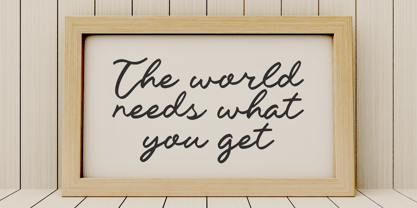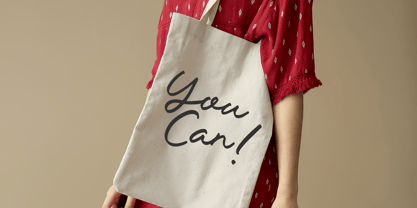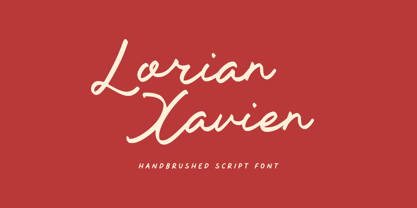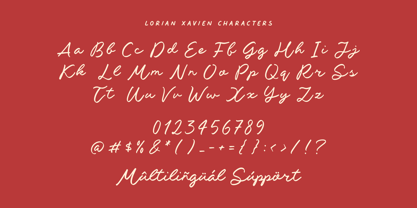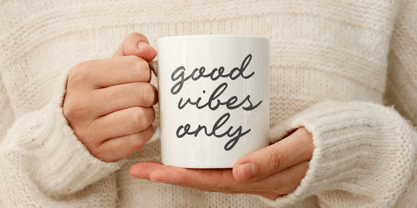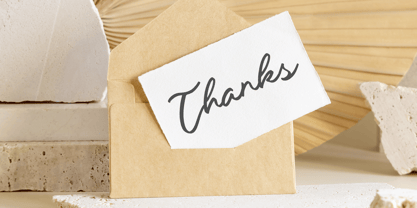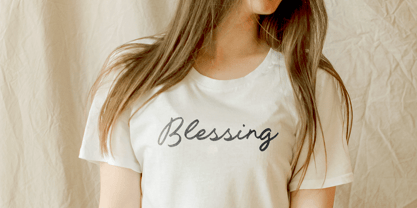
Lorian Xavien
La famille de polices Lorian Xavien a été conçue par Ibnu Nur Rahman et publiée par Timurtype. Lorian Xavien contient 1 styles. En savoir plus sur cette famille
Lorian Xavien is a Handbrushed Script Font
This font is a bold handbrushed script font with expressive strokes and a natural, artistic feel. Its dynamic letterforms bring a touch of handcrafted character, making it perfect for branding, posters, packaging, and creative designs.
Lorian Xavien Font also supports multilingualism